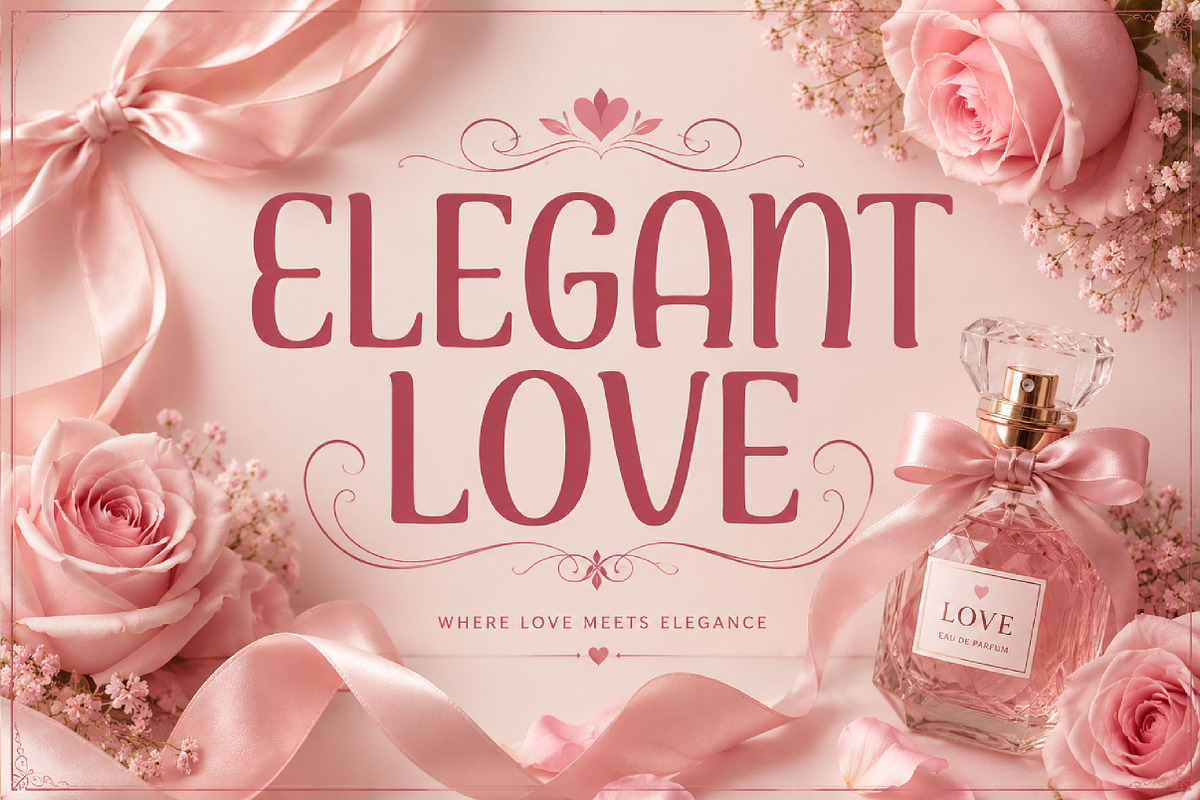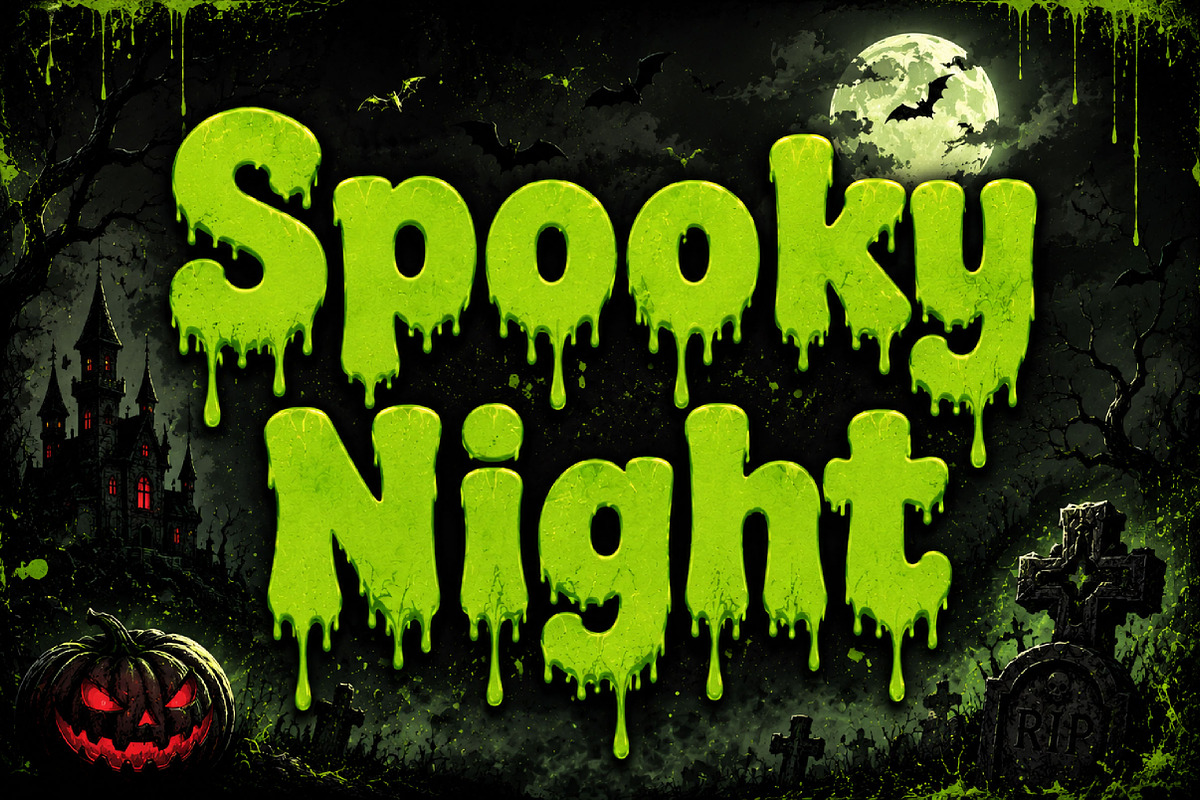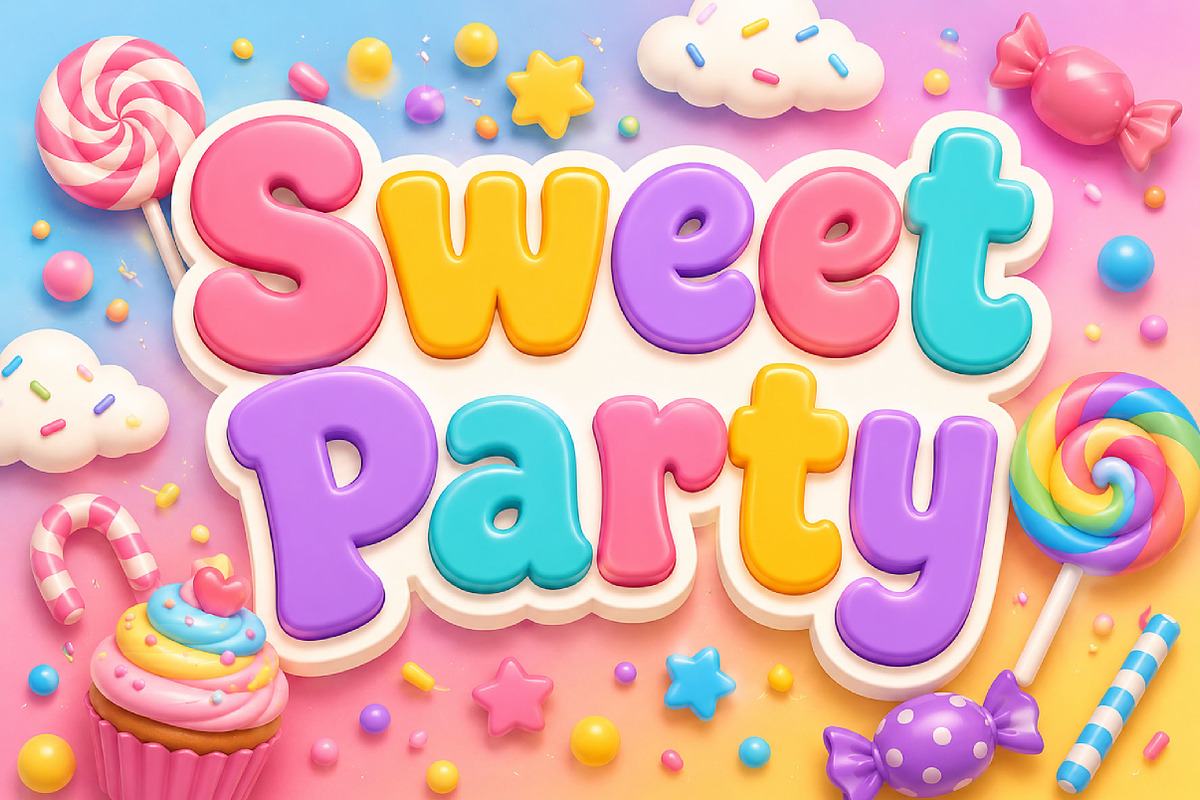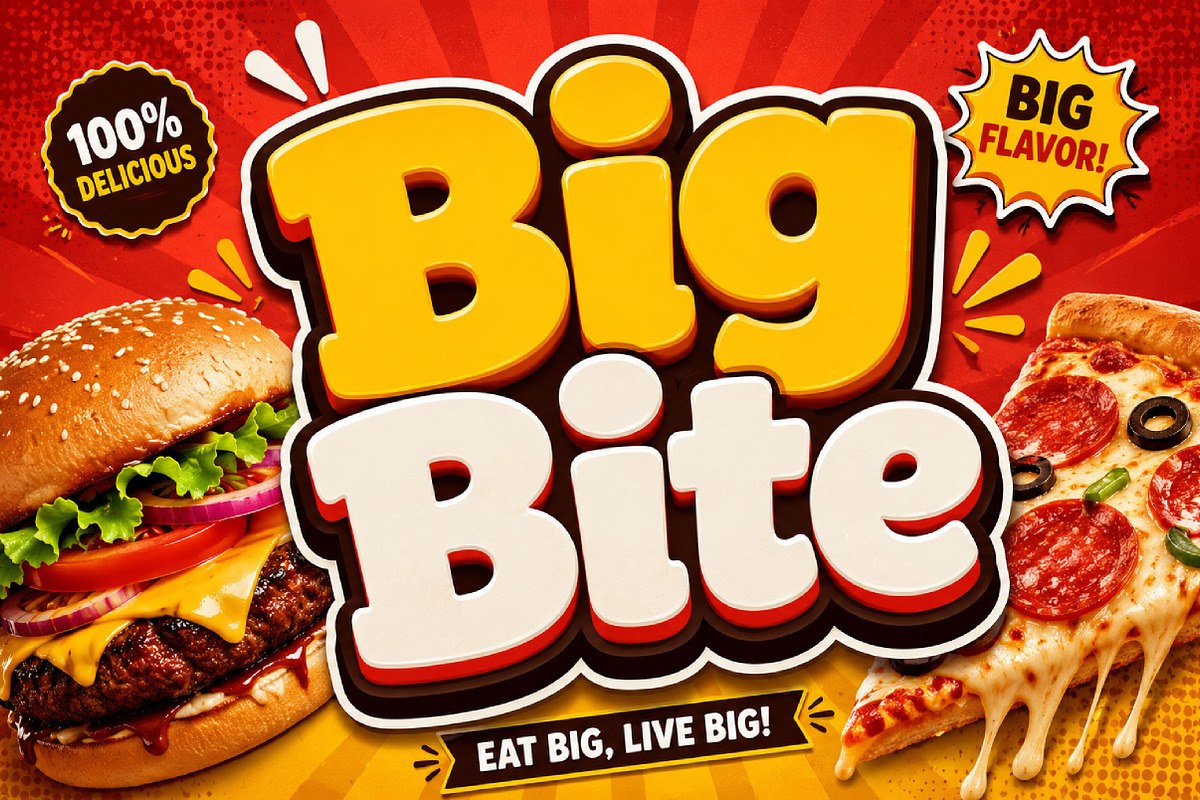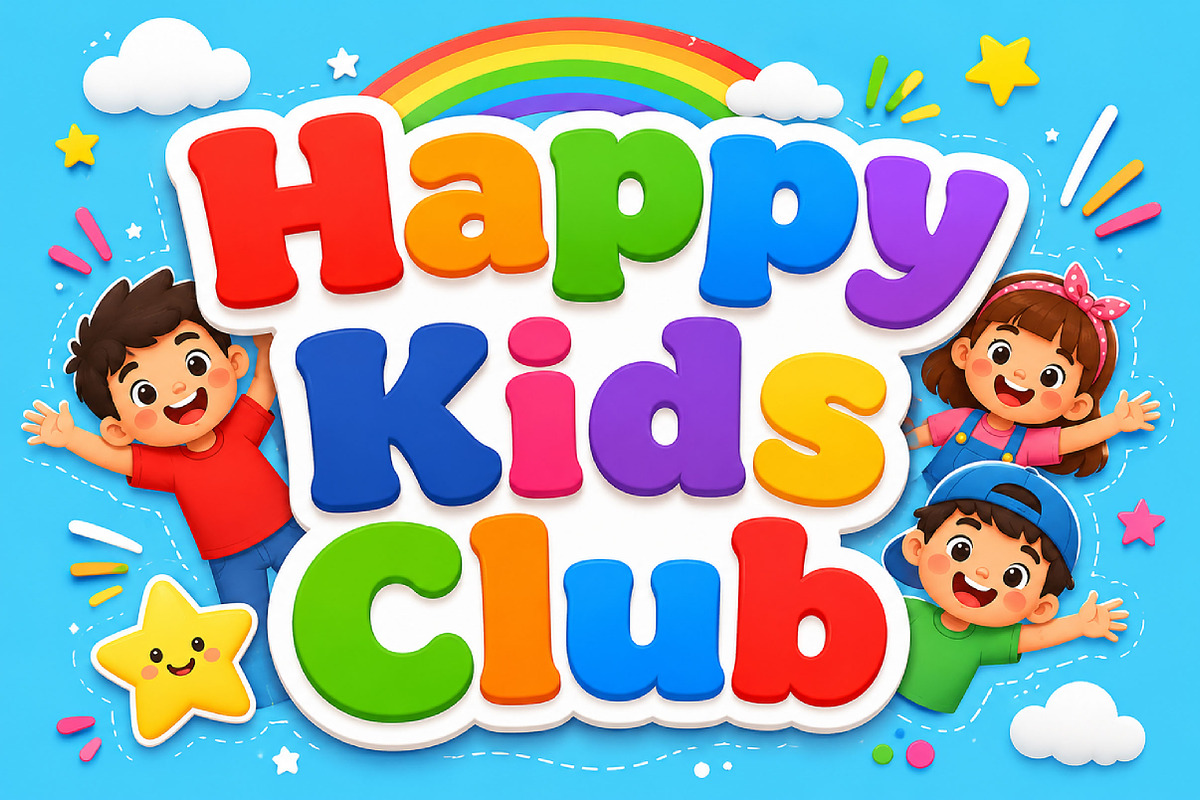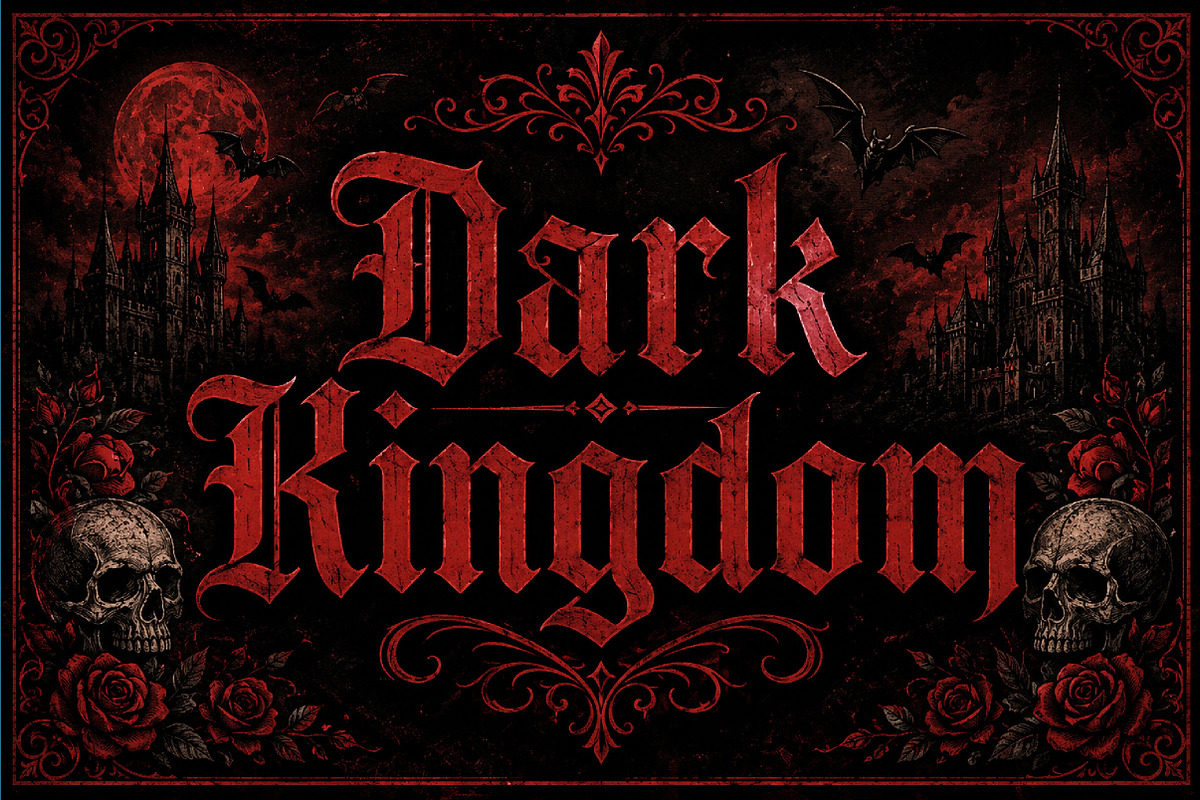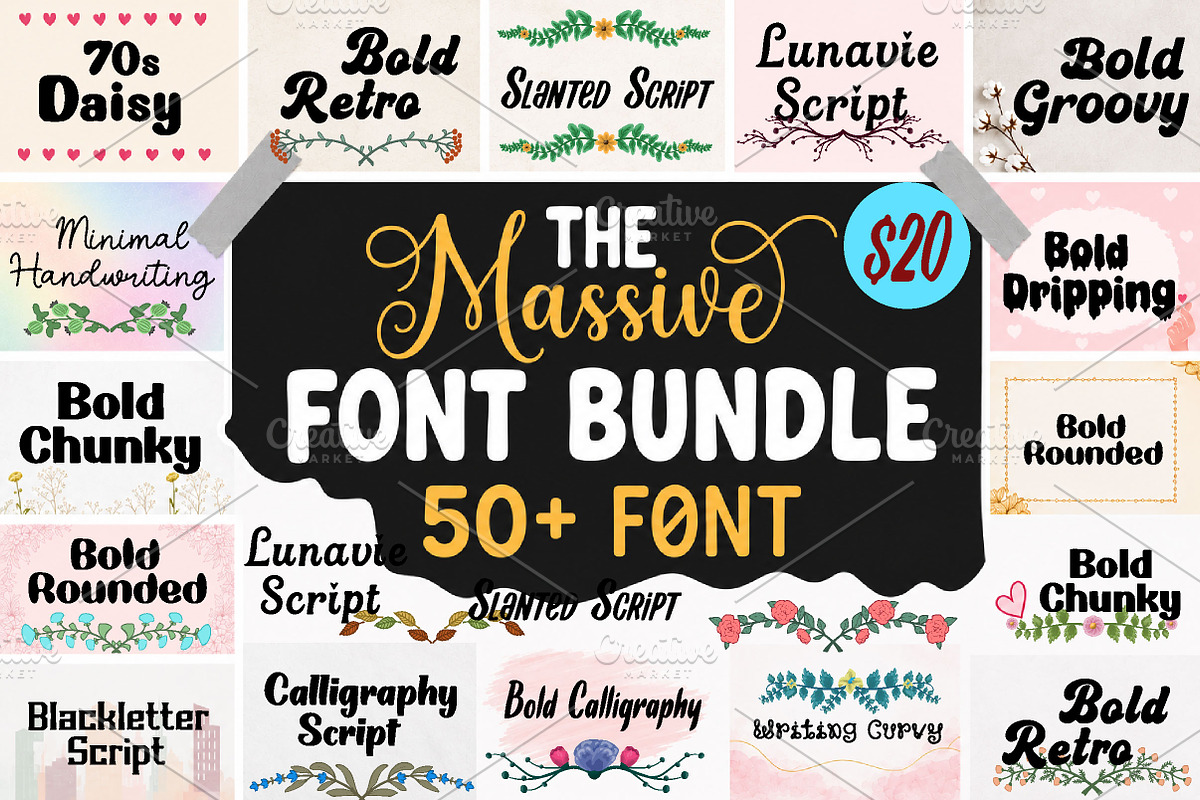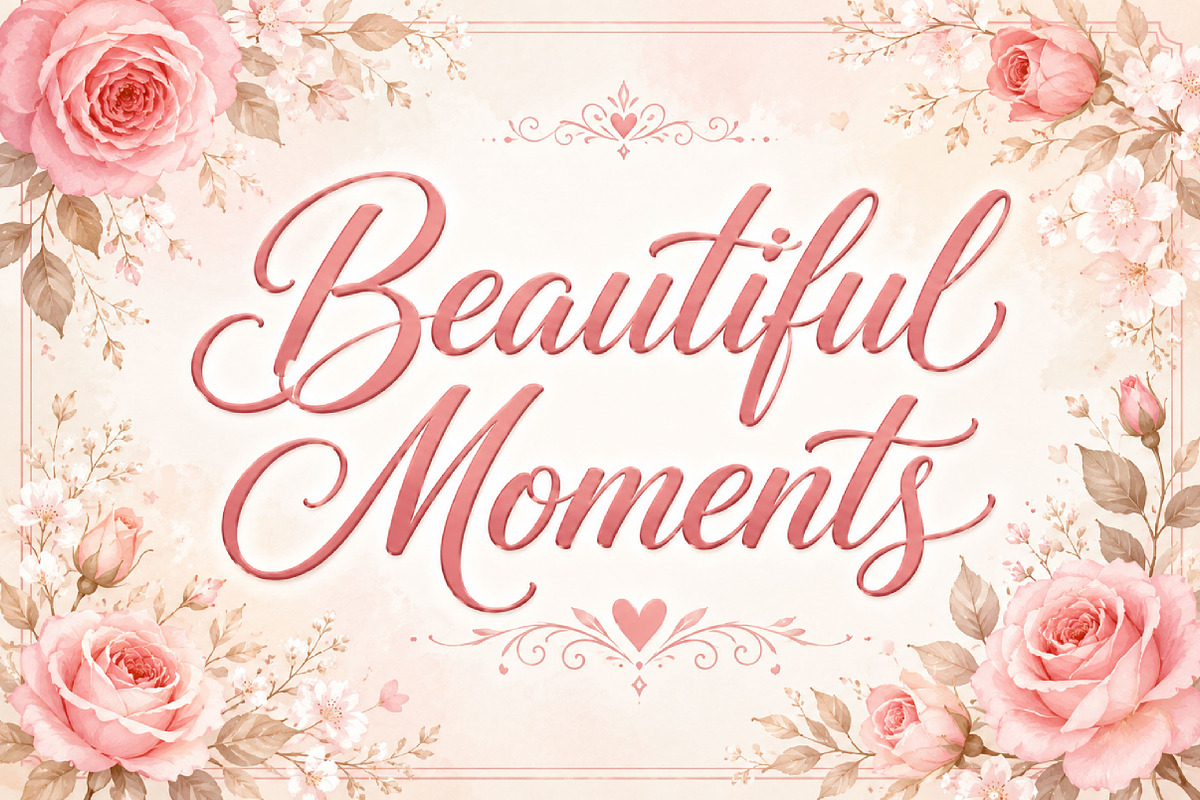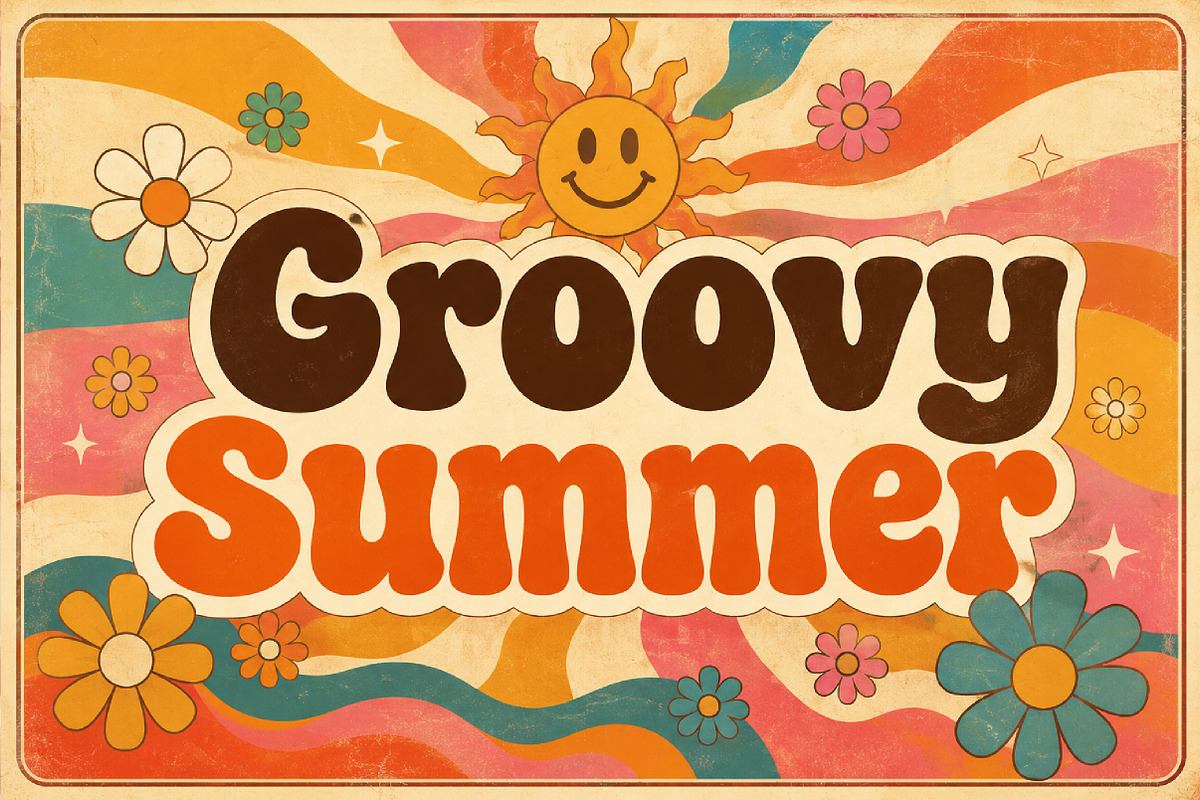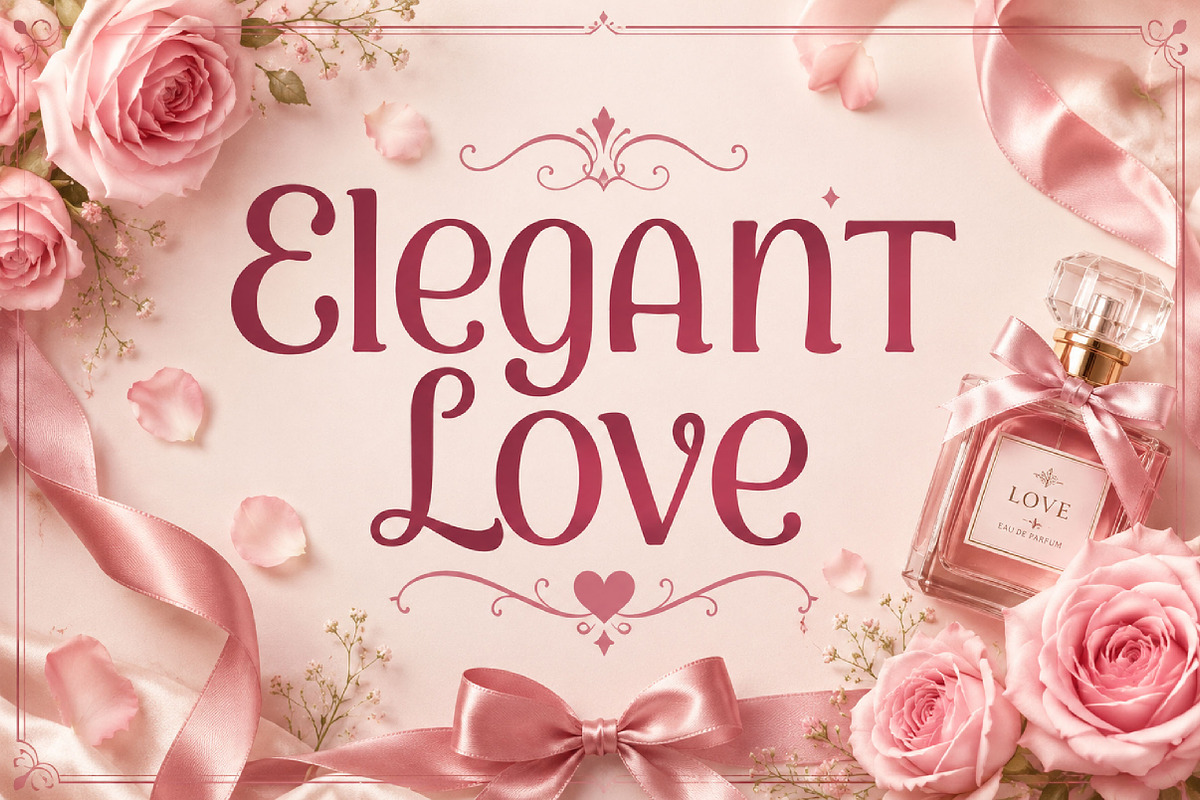
The Massive Font Mega Bundle
The Massive Font Mega Bundle – 50+ Creative Fonts Collection
Short Description
The Massive Font Mega Bundle is a huge collection of 50+ creative fonts, perfect for branding, logos, posters, packaging, invitations, social media graphics, merchandise, Cricut projects, and digital designs.
Full Description
The Massive Font Mega Bundle is a powerful collection of 50+ unique fonts created for designers, crafters, small business owners, and creative makers. This bundle gives you a wide variety of font styles in one complete pack, making it easy to create beautiful, professional, and eye-catching designs.
Inside this bundle, you will find multiple styles including playful fonts, handwritten fonts, script fonts, bold display fonts, decorative fonts, serif fonts, retro fonts, gothic fonts, sporty fonts, and themed creative fonts. This makes it perfect for many different design needs.
Whether you are creating logos, branding, product packaging, posters, invitations, greeting cards, stickers, T-shirt designs, social media posts, Cricut projects, sublimation designs, website headers, or digital products, The Massive Font Mega Bundle gives you the flexibility to design faster and better.
Bundle Features
50+ unique fonts included
Multiple font styles in one collection
50+ Font Families